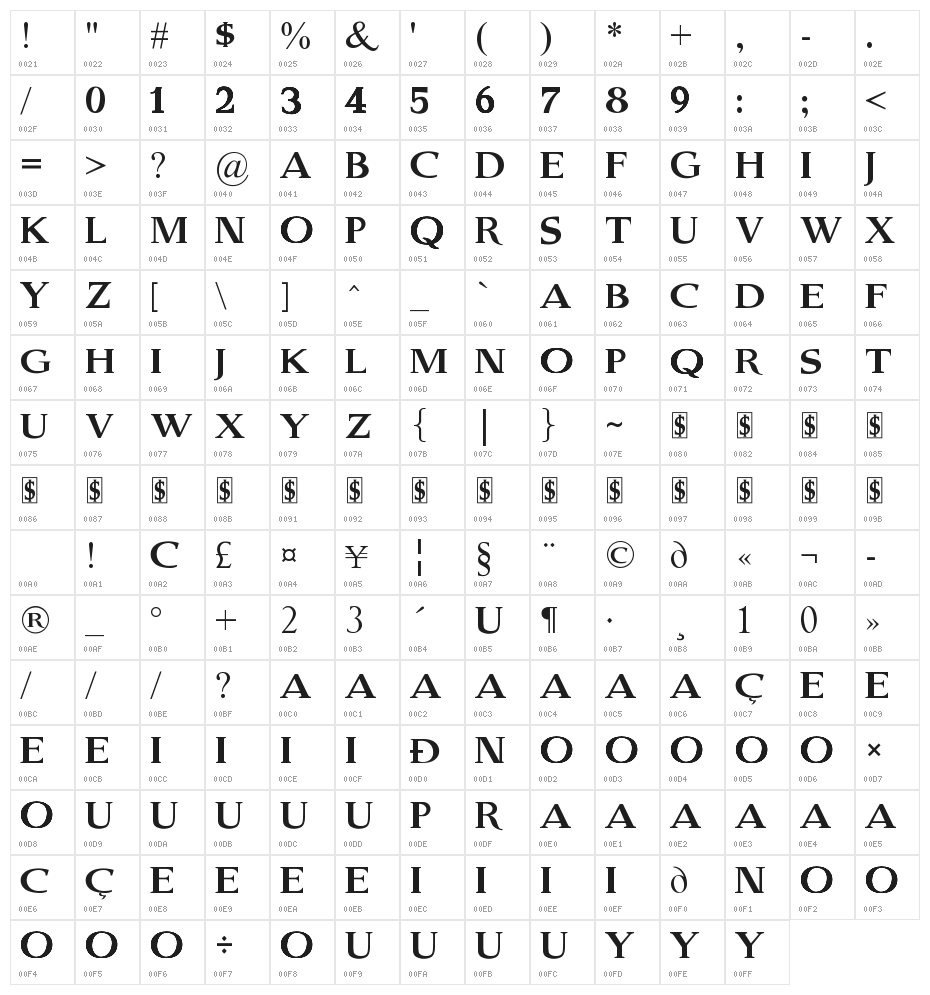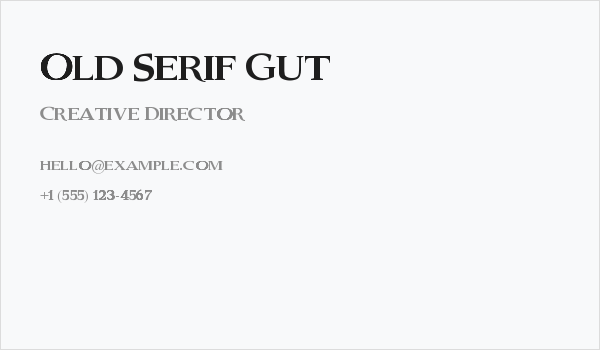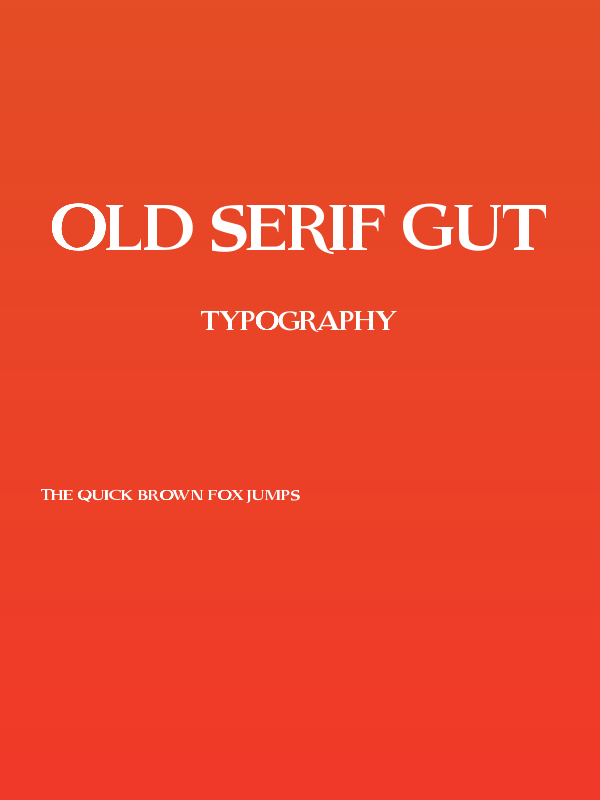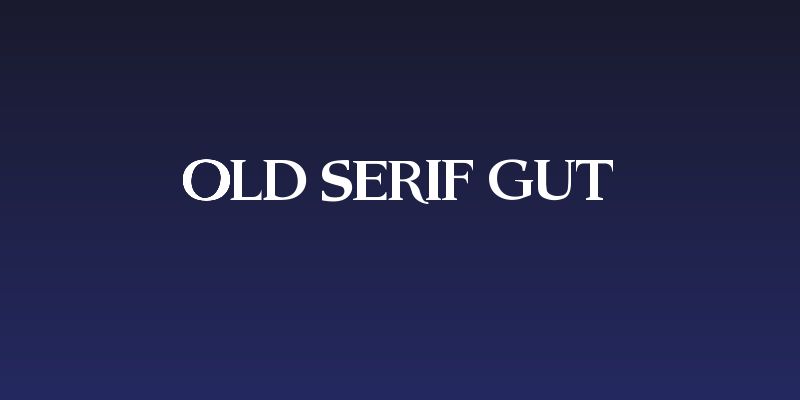
Old Serif Gut Font
Old Serif Gut Description
This font features a classic serif design with strong, pronounced serifs that give it a traditional and authoritative appearance. The characters are well-defined with a high contrast between thick and thin strokes, enhancing readability and elegance. The uppercase letters are bold and commanding, while the lowercase letters maintain a consistent style that complements the overall design. The numerals are distinct and clear, making them suitable for both formal and informal settings. The special characters are crafted with precision, ensuring they blend seamlessly with the rest of the font. This font is ideal for projects that require a touch of sophistication and timelessness.
| Proposed Projects | Ideal for book covers, formal invitations, branding, and editorial design. |